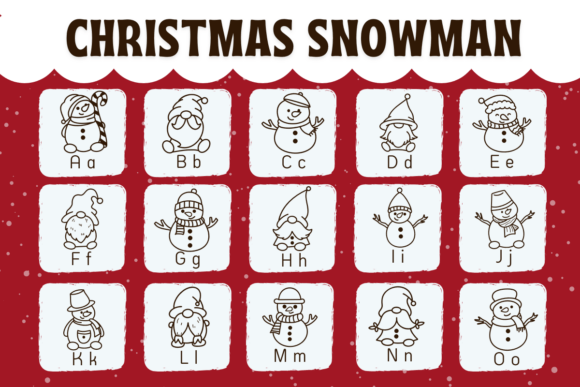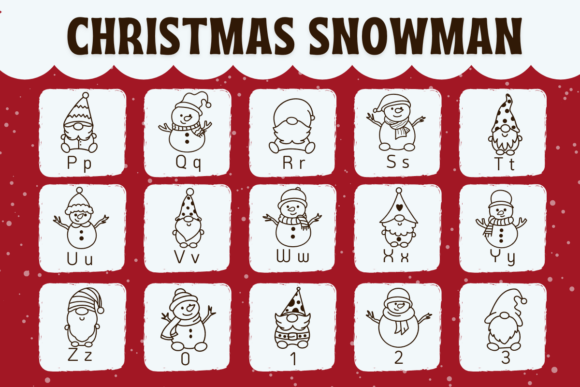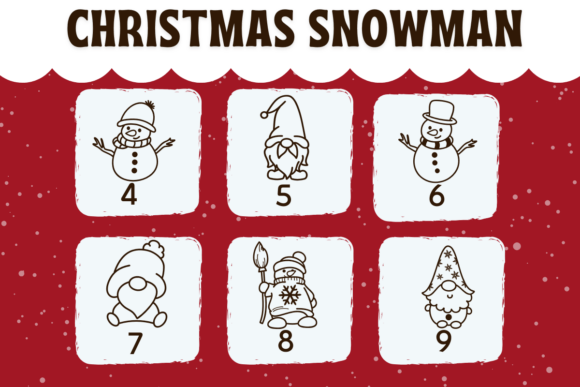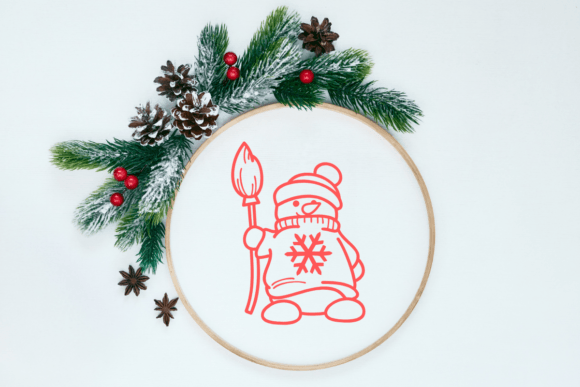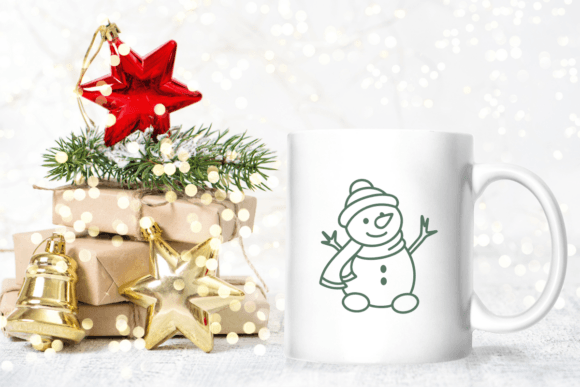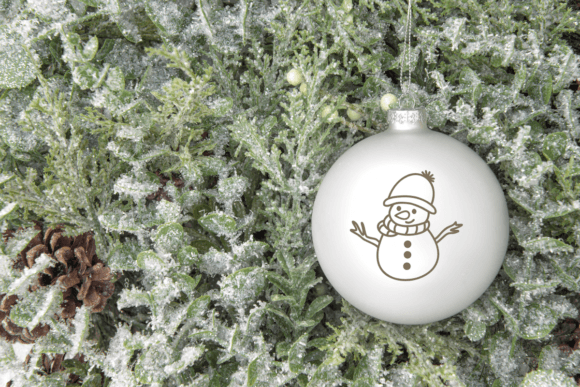
Christmas Snowman Font: A Festive Dingbats Font for Your Creative Projects
Are you looking for a unique and festive font to add a touch of Christmas magic to your creative projects? Look no further than the Christmas Snowman Font! This delightful dingbats font is perfect for designers, crafters, and anyone looking to add a dash of holiday cheer to their work.
What is Christmas Snowman Font?
Christmas Snowman Font is a specially designed dingbats font that features adorable snowmen, snowflakes, and other festive icons. The font is made up of a collection of glyphs that can be used to create a wide range of Christmas-themed designs, from simple and elegant to complex and playful.
How Can I Use Christmas Snowman Font?
The possibilities are endless with Christmas Snowman Font! Here are just a few ideas to get you started:
- Wedding Invitations: Add a touch of festive fun to your wedding invitations, save-the-dates, and thank-you cards.
- DIY Crafts: Use the font to create custom decorations, gift tags, and cards for your holiday crafts.
- Decorations: Design custom signs, banners, and garlands to decorate your home or office for the holidays.
- Logos: Create a unique and festive logo for your business or brand.
- Social Media Graphics: Use the font to create eye-catching social media graphics, such as holiday-themed Facebook posts and Twitter headers.
Features of Christmas Snowman Font
Here are just a few features that make Christmas Snowman Font a must-have for designers and crafters:
- Festive Icons: The font includes a wide range of festive icons, including snowmen, snowflakes, holly, and more.
- Scalable: The font is scalable to any size, making it perfect for use on a variety of projects, from business cards to billboards.
Tips for Using Christmas Snowman Font
Here are a few tips for getting the most out of Christmas Snowman Font:
- Experiment with Different Sizes: Try using the font in different sizes to create visual interest and hierarchy.
- Combine with Other Fonts: Combine Christmas Snowman Font with other fonts to create a unique and eye-catching design.
- Use on Dark Backgrounds: Use the font on dark backgrounds to create a bold and dramatic effect.
Christmas Snowman Font is a fun and festive dingbats font that’s perfect for designers, crafters, and anyone looking to add a touch of holiday cheer to their creative projects. With its wide range of festive icons, ease of use, and scalability, this font is sure to become a favorite in your design arsenal. So why wait? Download Christmas Snowman Font today and start creating your own festive designs!